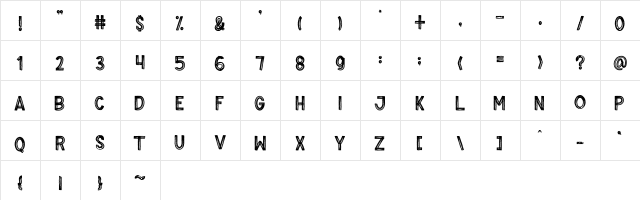
Proud Regular
| Foundry | Stefie Justprince |
| Designer | Stefie Justprince |
Design Context for Proud Typeface
Proud offers clean, dependable letterforms without strong stylistic allegiance, making it a practical choice for designers who need flexibility.